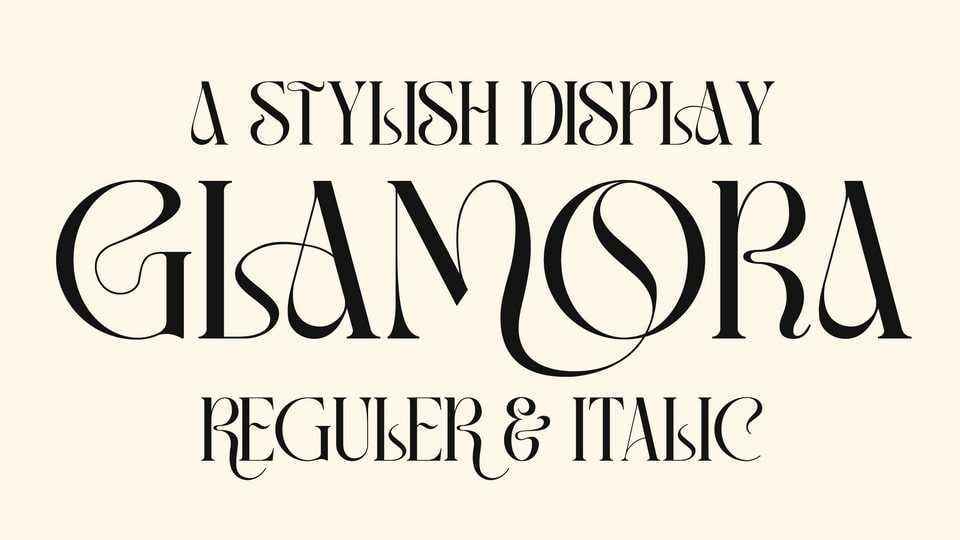
Download Glamora font, a modern display typeface that has own unique style and aesthetic look. Glamora font is perfect for an elegant and luxury logo, book or movie title design, fashion brand, magazine, clothes, lettering, quotes, and so much more.